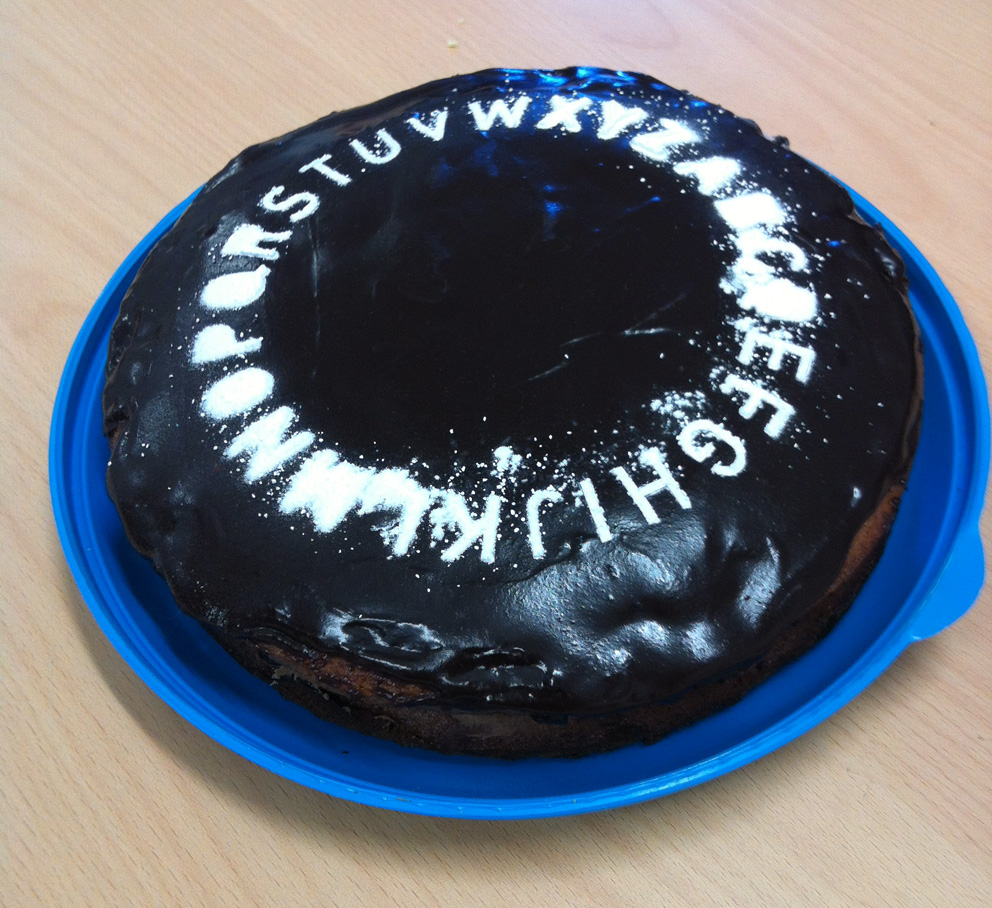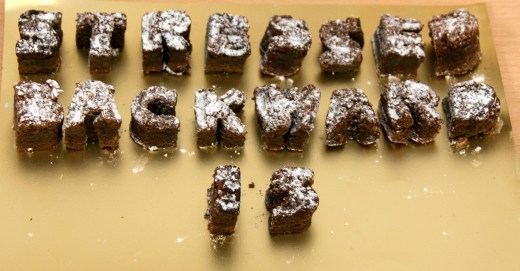
I recently gave a talk to the Visual Communication (VisCom) students at the Arts University Bournemouth. After the talk I was delighted to accept the invitation to be one of the judges of their third annual Type & Cake bake off.
Course leader Sally Hope introduced the competition as “a fusion of the course’s collective love for type, cake and baking” and there were entries from students, lecturers and visiting tutors. The judges had a difficult task with, if I remember correctly, 23 baking triumphs for us to sample. It was a tough job!
Clearly everybody had put a lot of time, research and thought into their creations. There were well thought through concepts, witty punch lines, impressive craftsmanship and a range of type styles. All of them tasted as good as they looked.
The overall winner was third-year student Zachariah Lloyd, who used his girlfriend’s chocolate cake recipe and cut out letterforms from the sponge (below). “It took an hour to cut them out,” he said, “I couldn’t tell you what typeface it was I was trying to cut them out well!”
Sally Hope (above), the letters are letters based on letterpress blocks in the university’s collection.